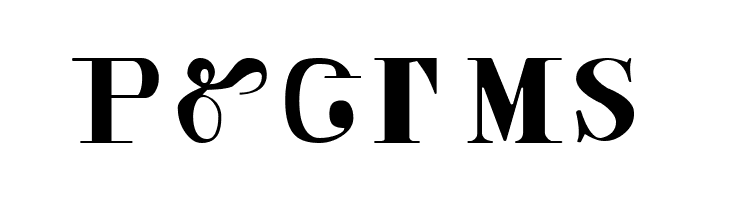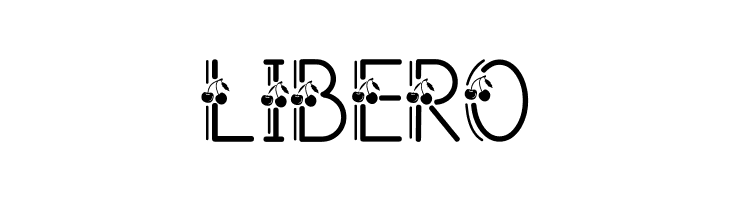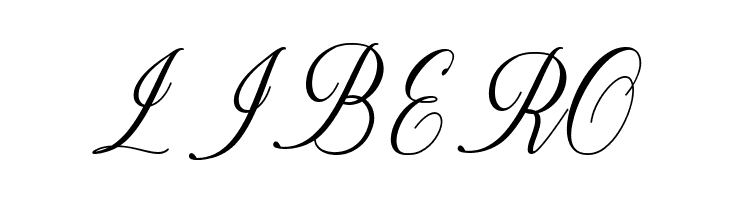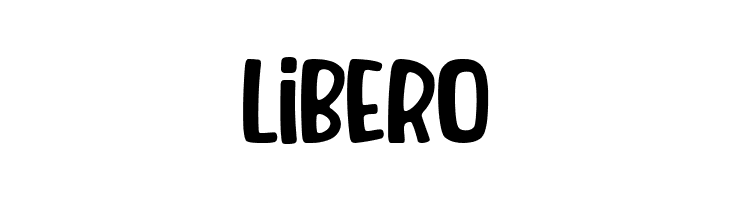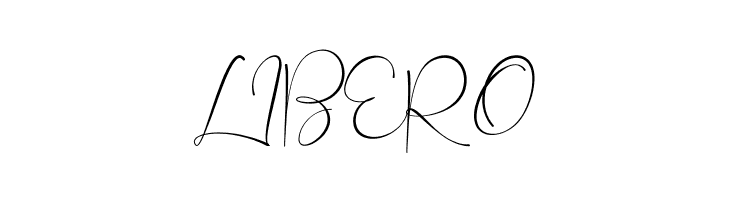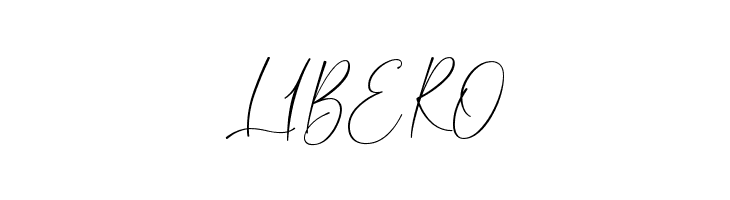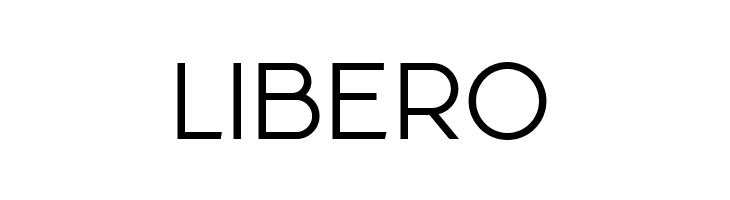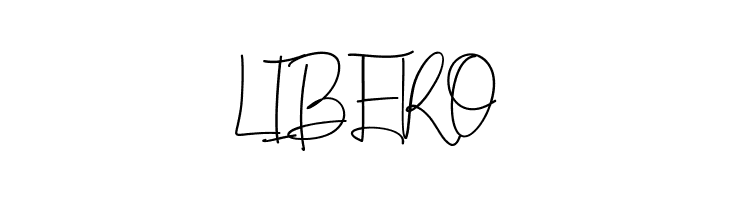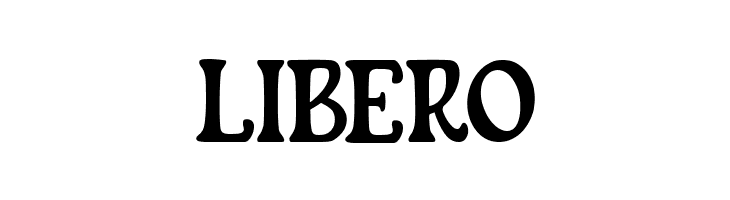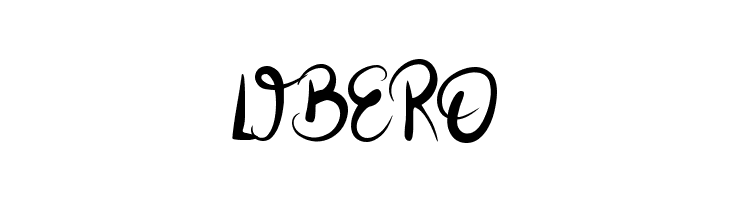
• cherif
A bold, high-contrast font with geometric and modern elements.
• Cherile Regular
A playful, rounded font with smooth curves and a friendly appearance.
• Cherill
A playful, handwritten font with fluid strokes and a whimsical style.
• Cherill
A playful, handwritten font with flowing, interconnected strokes.
• CherilyBlussomDEMO
A playful, hand-drawn font with elongated, quirky letterforms.
• Cherilyn
A graceful script font with elegant swashes and a classic calligraphic style.
• Cherio
A classic, elegant script font with flowing, interconnected letters.
• CherioneNormal
• Cherish
A flowing, elegant script font with a modern twist.
• Cherish
A fluid and graceful script font with interconnected letters and dynamic strokes.
• Cherish & Love
A bold, vintage serif font with a distressed, handcrafted look.
• Cherish Is the Word Demo
An elegant and sophisticated script font with intricate, flowing characters.
• Cherish Moment
A playful, bold font with rounded edges and a hand-drawn style.
• Cherish Regular